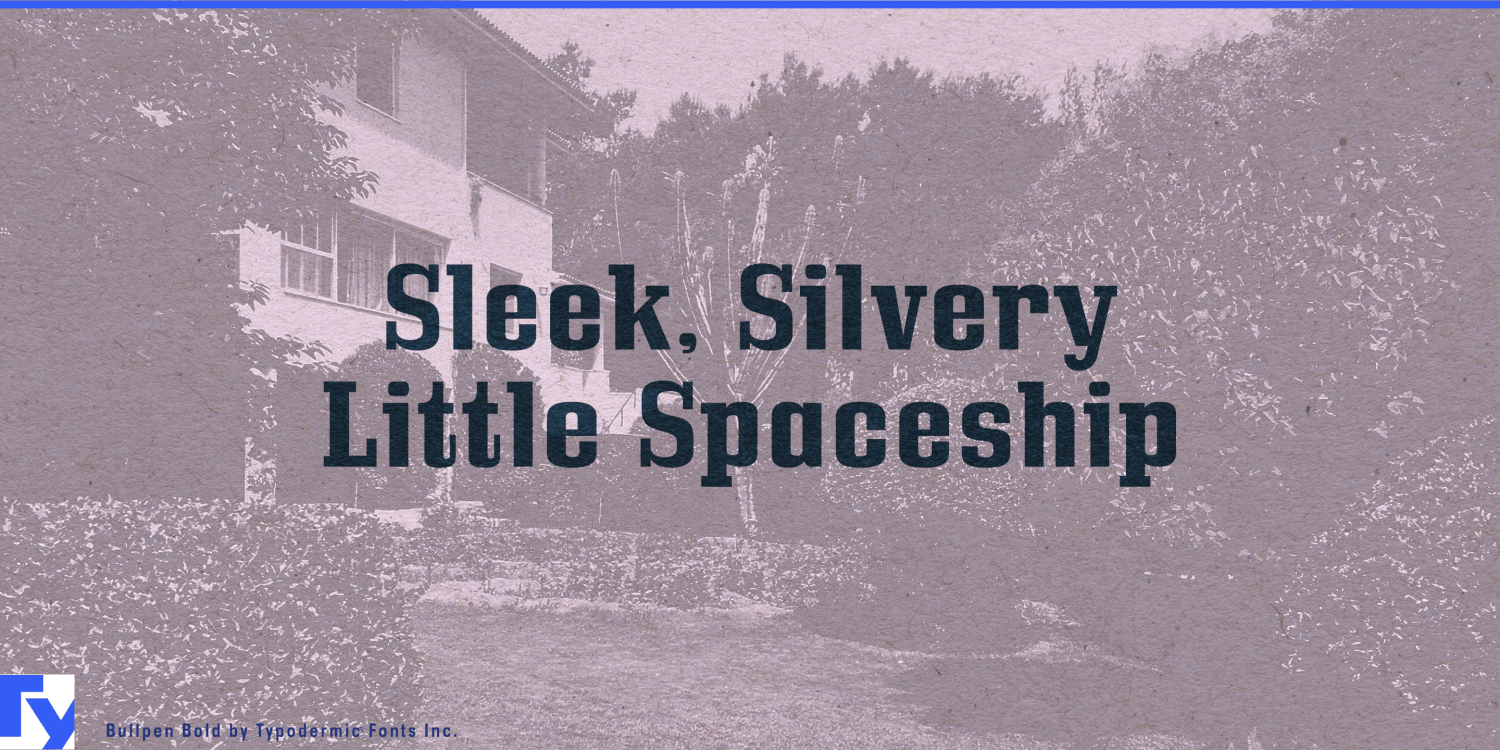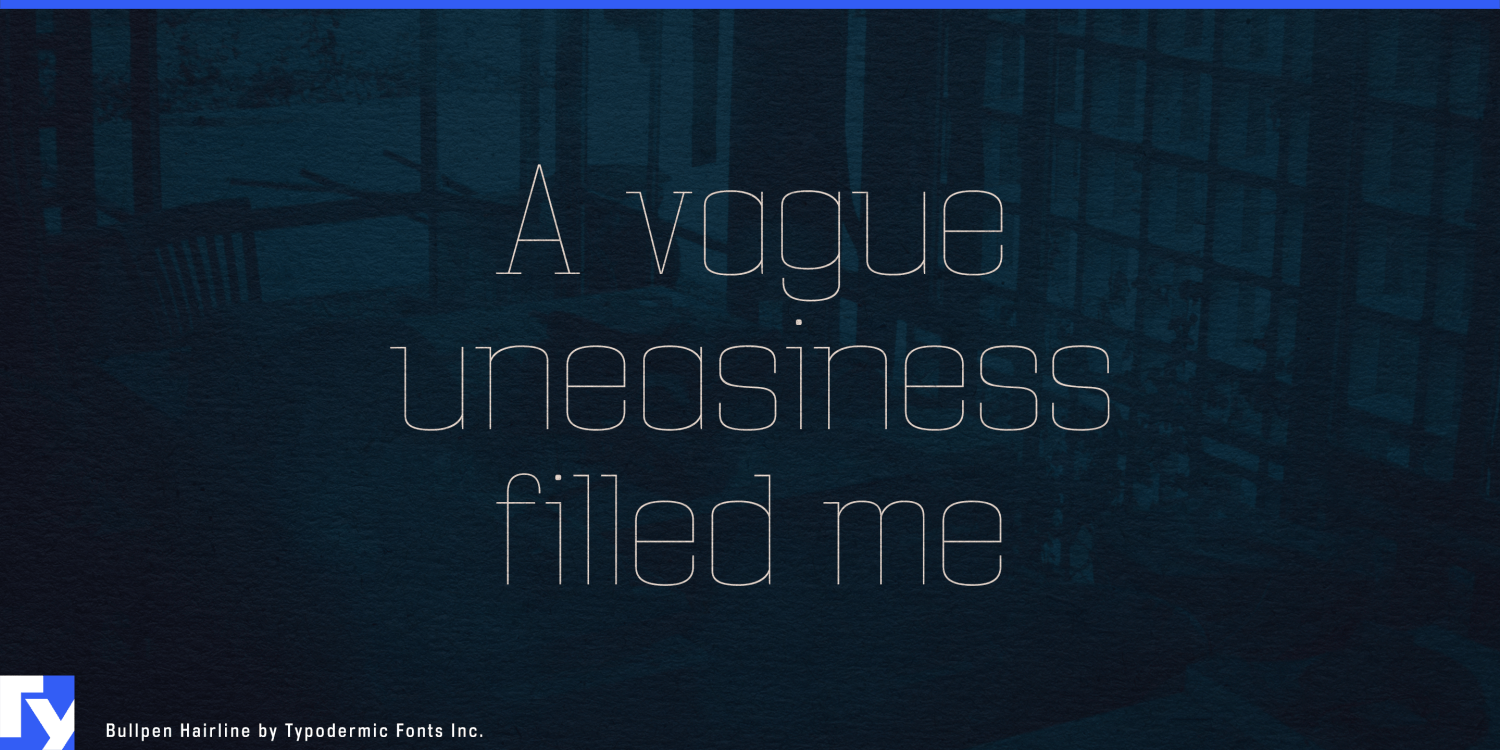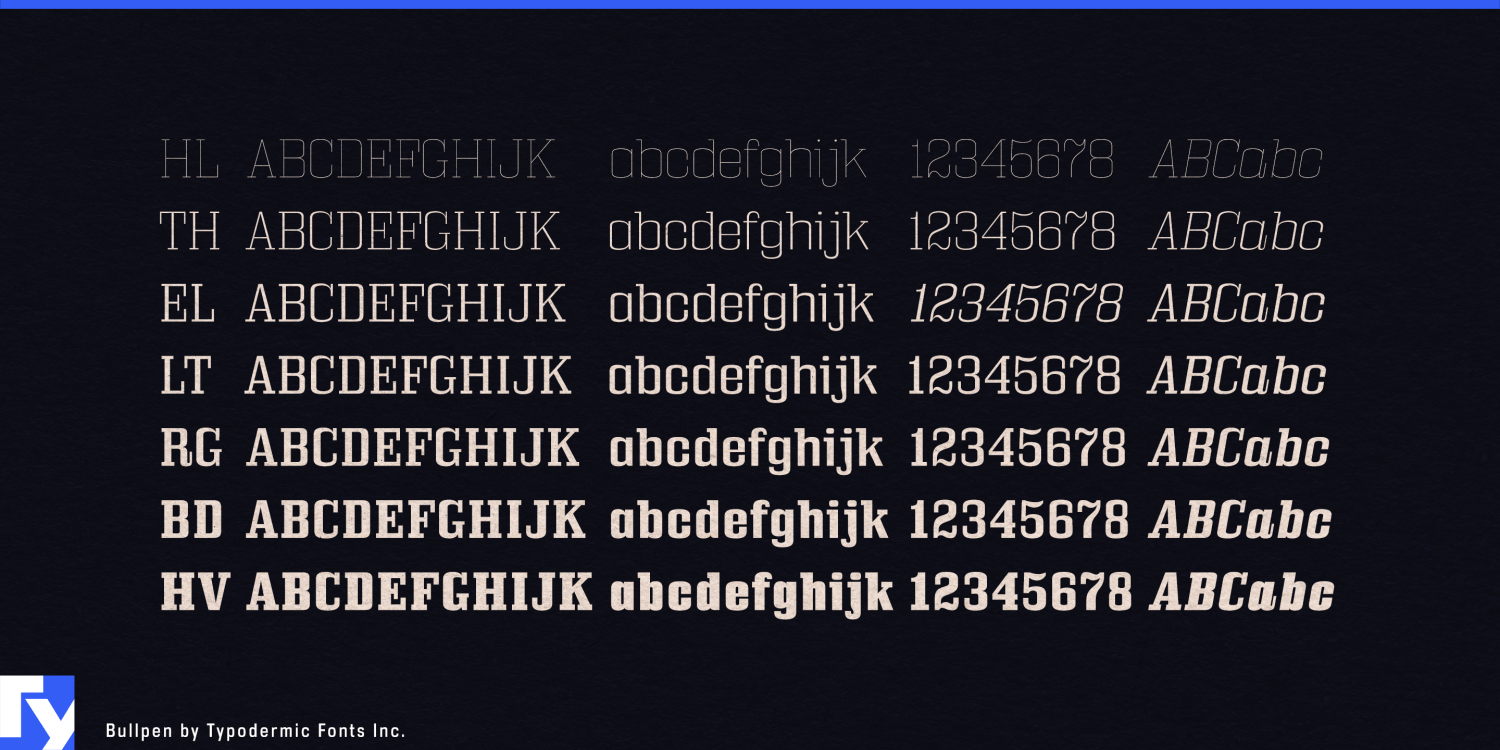
About Bullpen
Bullpen stands as a paragon of typographic strength, its mechanical curves and unyielding serifs crafted for those who refuse to go unnoticed. This robust font family, with its seven weights and matching italics, offers a spectrum of voices from authoritative…